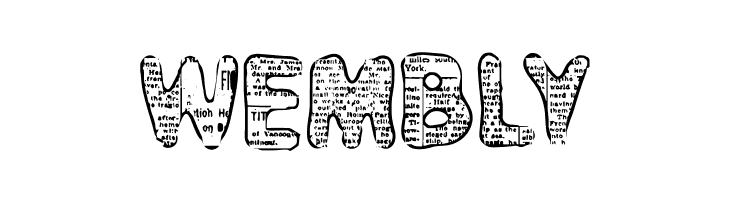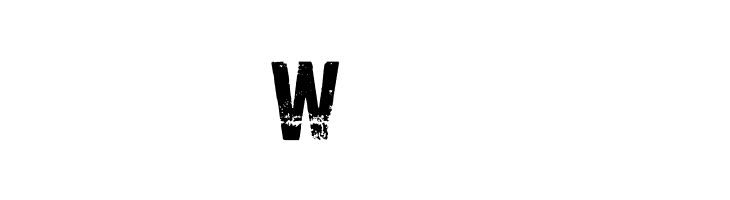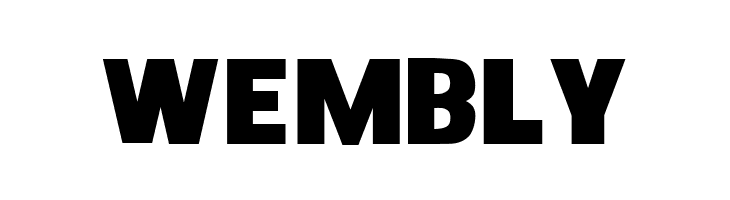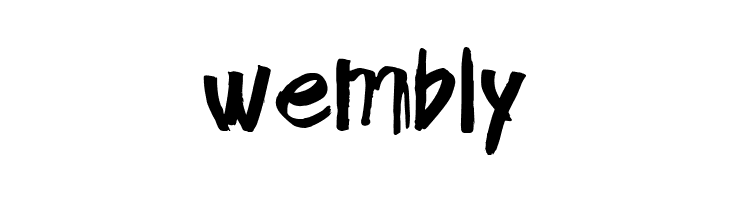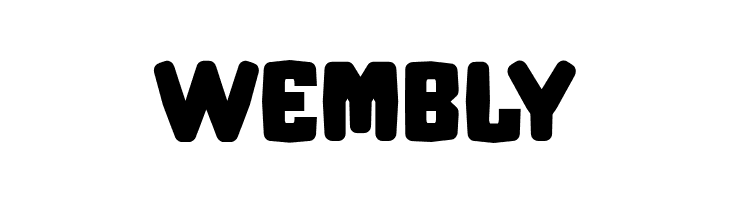
A bold, textured font with a newspaper print design, perfect for vintage-themed projects.
A bold, modern font with geometric shapes and sharp angles.
A playful, decorative font with floral and springtime motifs.
A whimsical, decorative font with branch-like extensions and consistent stroke thickness.
A bold, vintage-style font with a decorative, distressed texture.
A vintage, distressed font with a handcrafted, weathered appearance.
A bold, distressed font with a grunge texture and rugged appearance.
A bold, distressed font with a rugged, historical feel.
A dot matrix style font with a geometric and digital appearance.
A digital-inspired, segmented font resembling LCD displays.
A bold, dripping font perfect for horror-themed designs.
A futuristic, slanted font with bold, condensed characters and medium contrast.
A bold, playful font with an extraterrestrial theme and quirky, rounded characters.
A modern, geometric font with sharp angles and smooth curves.
A dynamic, brush-like font with expressive, hand-drawn strokes.
A playful, hand-drawn font with bold, expressive strokes and a whimsical style.
Bold, outlined font with a classic varsity style.
A festive, fluffy font with Christmas ornament decorations.
A vintage-inspired font with a slanted, elegant style and decorative elements.
A futuristic, geometric font with clean lines and rounded edges.
A bold, playful font with rounded edges and a hand-drawn feel.
A playful, handwritten font with a modern and clean appearance.
A bold, distressed font with a grunge, graffiti-inspired style.
An ornate, decorative font with intricate detailing and a whimsical style.
A modern, sleek font with elongated strokes and subtle curves.
A bold, expressive font with a hand-painted, brush stroke appearance.
An intricate, ribbon-like decorative font with a whimsical and artistic style.